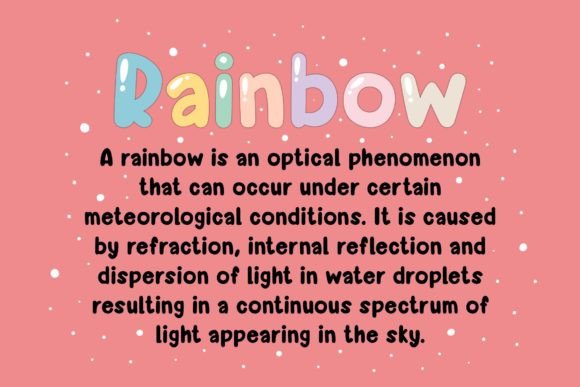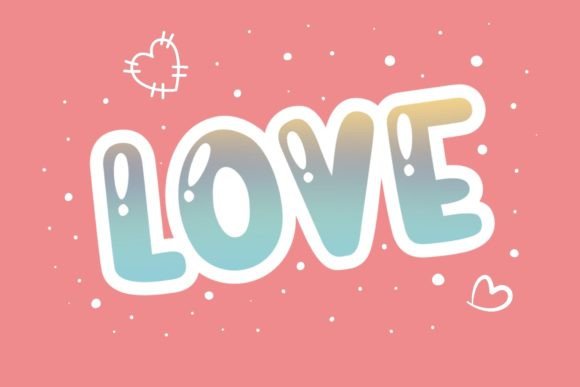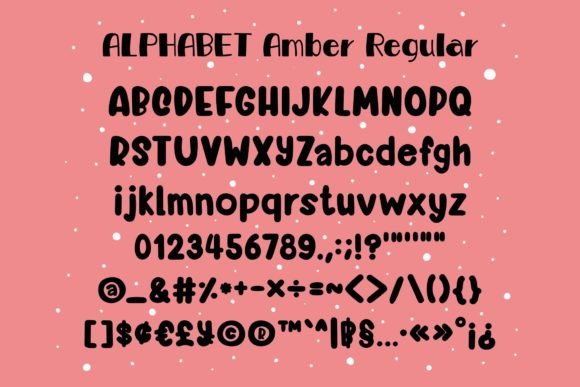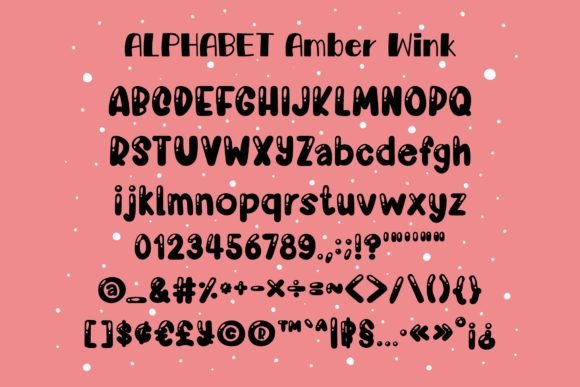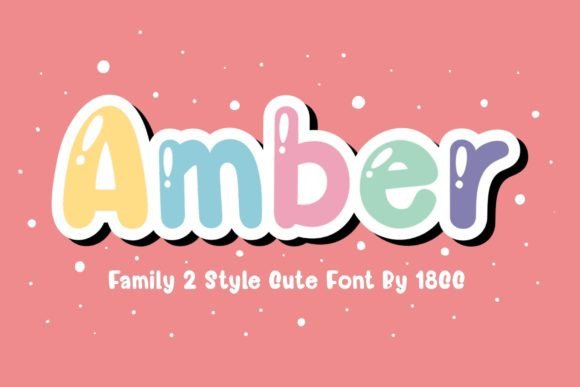
Introducing Amber Font: The Fun and Bright Handwritten Display Font
Are you a designer or crafter looking for a font that can add a touch of playfulness and charm to your designs? Look no further than Amber Font, a fun and bright handwritten display font that’s perfect for creating lovely designs. With its cute and casual charm, Amber Font is ideal for a wide range of projects, from t-shirts and stickers to tote-bags, candy packaging, mugs, and more!
What Makes Amber Font So Special?
Amber Font is a unique and eye-catching font that’s designed to bring a smile to your face. Its handwritten style gives it a personal and approachable feel, making it perfect for designs that need to be friendly and inviting. The font’s bright and cheerful vibe is sure to grab attention and make your designs stand out from the crowd.
Uses for Amber Font
Amber Font is incredibly versatile and can be used for a wide range of projects, including:
- T-shirts: Create fun and stylish t-shirts with Amber Font that’s perfect for casual wear.
- Stickers: Add a touch of personality to your stickers with Amber Font’s playful and colorful style.
- Tote-bags: Design adorable tote-bags with Amber Font that’s perfect for grocery shopping, beach trips, or everyday use.
- Candy packaging: Make your candy packaging stand out with Amber Font’s bright and cheerful style.
- Mugs: Create fun and functional mugs with Amber Font that’s perfect for hot chocolate, coffee, or tea.
Why Designers and Crafters Love Amber Font
Amber Font is a favorite among designers and crafters for several reasons:
- Customization: With Amber Font, you can customize your designs to fit your brand or personal style.
- Unique style: Amber Font’s unique style ensures that your designs will stand out from the crowd.
- Time-saving: With Amber Font, you can create professional-looking designs in no time.
Tips for Using Amber Font
Here are some tips for getting the most out of Amber Font:
- Pair with other fonts: Experiment with pairing Amber Font with other fonts to create unique and interesting combinations.
- Play with colors: Amber Font looks great in bright and bold colors, so don’t be afraid to experiment with different color schemes.
- Add graphics: Add graphics or illustrations to your designs to make them more visually interesting.
- Experiment with sizes: Try using Amber Font in different sizes to create visual hierarchy and add emphasis to your designs.
Amber Font is a fun and bright handwritten display font that’s perfect for designers and crafters who want to add a touch of playfulness and charm to their designs. With its cute and casual charm, Amber Font is ideal for a wide range of projects, from t-shirts and stickers to tote-bags, candy packaging, mugs, and more! So why wait? Download Amber Font today and start creating your own lovely designs!